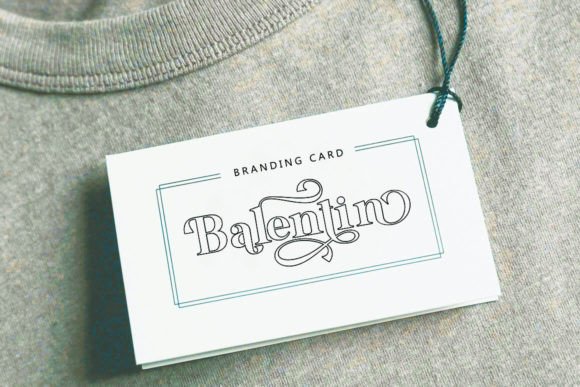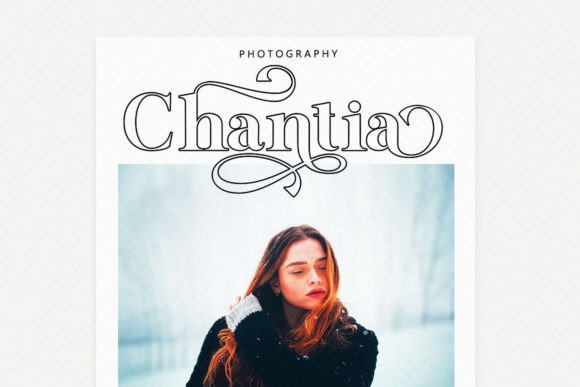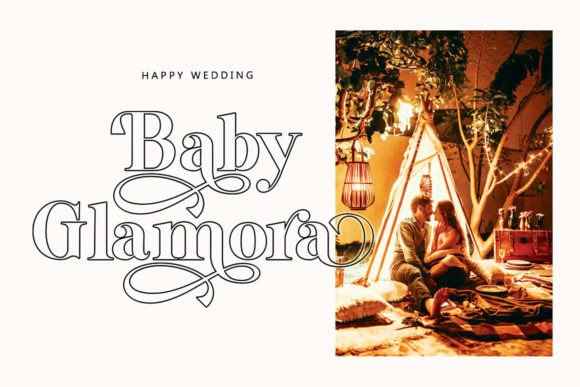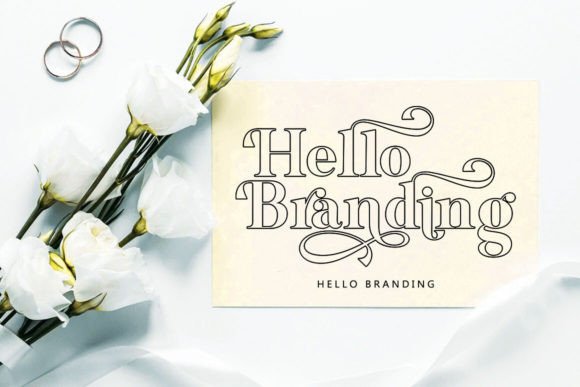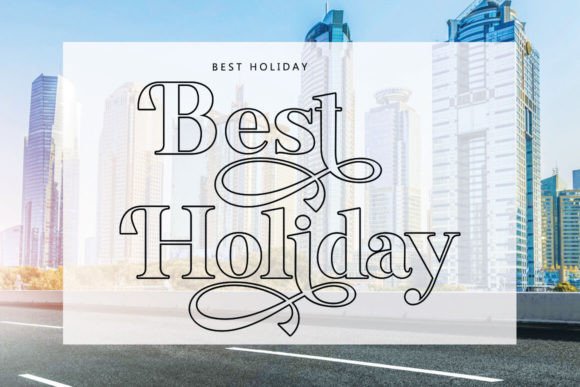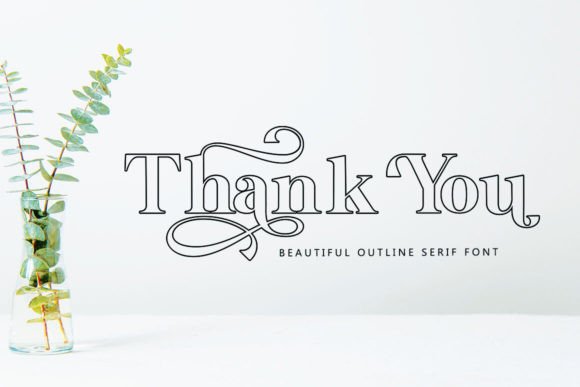
Discover the Elegance of Darling Calming Outline: A Versatile Serif Font
In the world of typography, fonts play a crucial role in conveying the tone and aesthetic of a design. For designers and crafters looking for a font that exudes luxury, modernity, and friendliness, Darling Calming Outline is an excellent choice. This beautiful serif font is characterized by its unique blend of classic and contemporary styles, making it perfect for a wide range of design projects.
What Makes Darling Calming Outline Stand Out?
Darling Calming Outline is a serif font that boasts a luxurious style in its modern form. Its sleek lines, elegant curves, and refined details make it an ideal choice for designs that require a touch of sophistication. However, what sets it apart is its ability to also convey a friendly and cheerful tone, especially in its bold variations. This versatility makes it a valuable asset for designers who want to create a wide range of designs, from elegant and classy to unique and edgy.
Key Features of Darling Calming Outline
- Serif Style: Darling Calming Outline features a classic serif style that adds a touch of tradition and elegance to any design.
- Luxurious and Modern: The font’s modern form and luxurious details make it perfect for high-end designs, such as branding, packaging, and advertising.
- Glyphs and Variations: Darling Calming Outline comes with a range of glyphs, providing crafters with more choices to experiment with and add unique touches to their designs.
- Friendliness and Cheerfulness: The font’s bold variations convey a friendly and cheerful tone, making it suitable for designs that require a more approachable and playful feel.
How Darling Calming Outline Can Elevate Your Designs
Darling Calming Outline can instantly elevate your designs by adding a touch of class and sophistication. Its modern style and elegant details make it perfect for:
- Branding and Logo Design: Create a lasting impression with a luxurious and memorable logo that reflects your brand’s values and personality.
- Packaging Design: Add a touch of elegance to your product packaging and make it stand out on store shelves.
- Advertising and Marketing: Use Darling Calming Outline to create eye-catching ads and marketing materials that exude professionalism and sophistication.
- Stationery and Invitations: Create beautiful and elegant stationery, invitations, and greeting cards that make a lasting impression.
Tips for Using Darling Calming Outline Effectively
To get the most out of Darling Calming Outline, consider the following tips:
- Experiment with Font Sizes: Play with different font sizes to create visual hierarchy and emphasize important information.
- Pair with Other Fonts: Combine Darling Calming Outline with other fonts to create a unique and interesting contrast.
- Use Bold Variations: Use the bold variations of Darling Calming Outline to add emphasis and create a bold statement.
- Pay Attention to Kerning: Make sure to adjust the kerning to ensure that the font looks elegant and refined.
| Font Name | Darling Calming Font |
| Author | Mastertype |
Darling Calming Outline is a versatile and elegant serif font that can elevate your designs and add a touch of sophistication. Its unique blend of luxury, modernity, and friendliness makes it perfect for a wide range of design projects. With its range of glyphs and variations, Darling Calming Outline provides designers and crafters with endless possibilities for creative expression. Whether you’re looking to create a classy and elegant design or a unique and edgy one, Darling Calming Outline is an excellent choice.